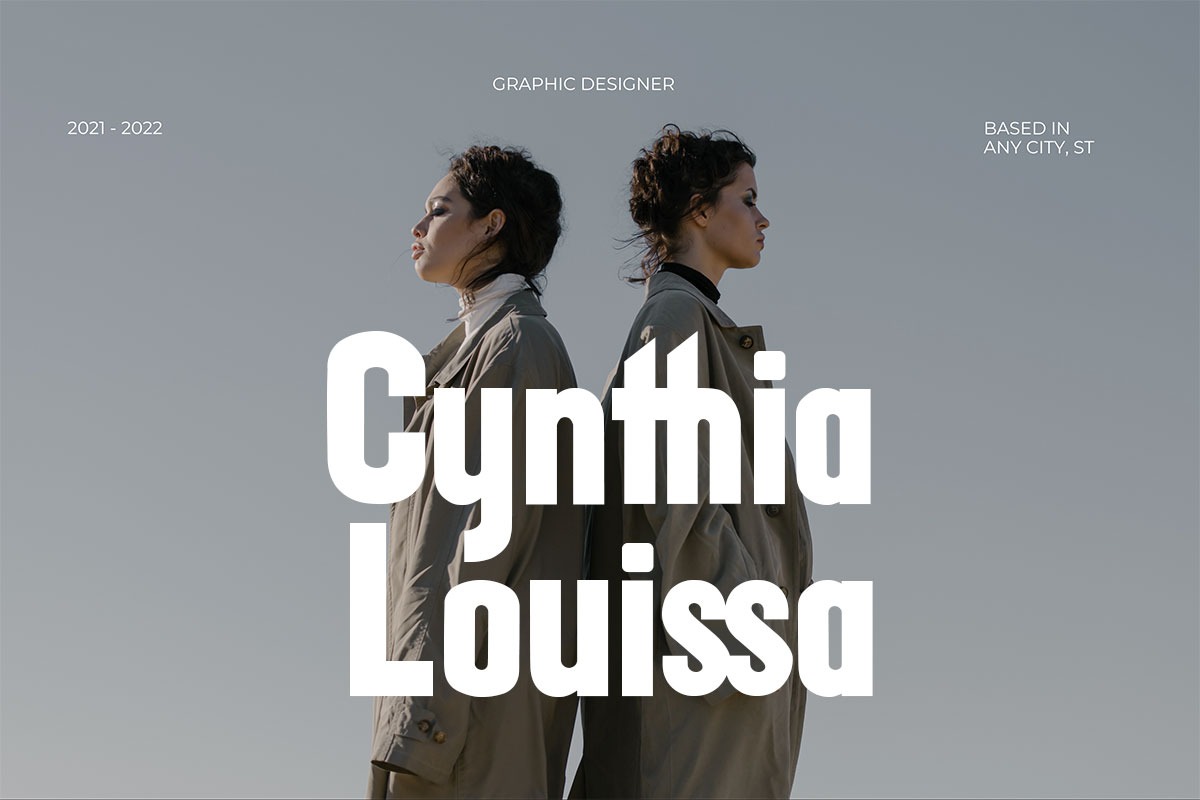
Texas Sans Serif Font
This is a friendly and simple display sans serif typeface crafted & designed by fontkong. It will give high value to your design such as branding, poster, quote, web, blog, magazine, newspaper, game name, movie title, advertisement, all social media, logo, t-shirt design, lettering and much more!